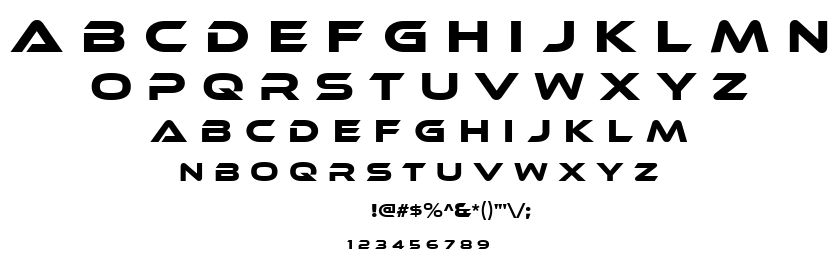
This techno font is part of Typodermic Fonts’ Larabie Fonts collection and it’s free for commercial use. Don’t forget to read the files inside the zip for details. Updated in 2010.